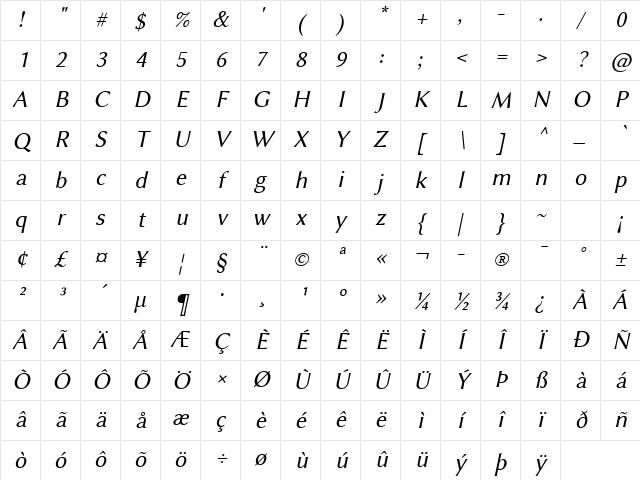
Linux Biolinum Slanted Slanted
Style: Slanted
Foundry: Philipp H. Poll
Designer: Philipp H. Poll
Design Context for Linux Biolinum Slanted
Linux Biolinum Slanted is a composed and adaptable typeface that performs quietly and consistently across a wide range of design contexts. The slanted form adds forward momentum and visual energy.
Pro Tip: Use Linux Biolinum Slanted for emphasis, pull quotes, and subheadings where its slanted energy can add rhythm to the layout.
Who designed the Linux Biolinum Slanted font?